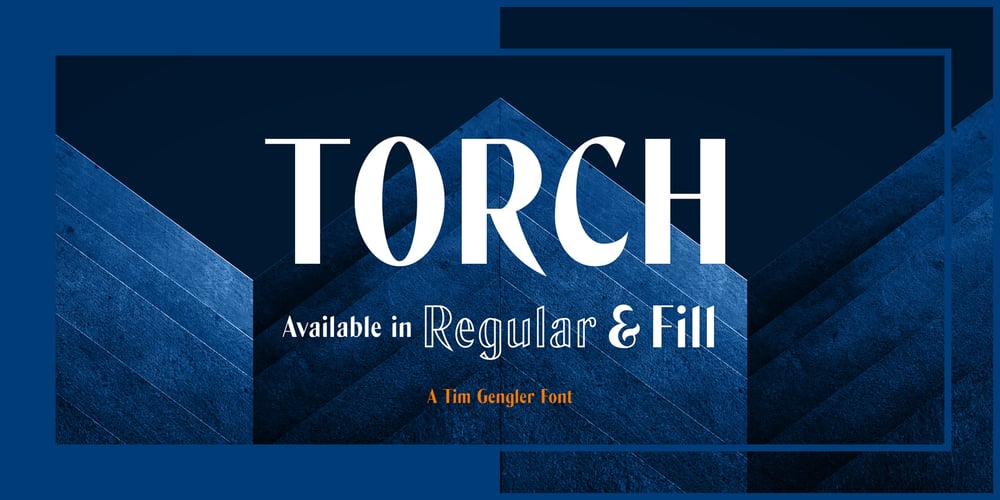
Torch
Torch font
Torch Font Family was designed by Tim Gengler and published by Bunny Dojo. Torch contains 2 styles and family package options. Torch is a spirited, sophisticated sans. With an open flow that embraces and accentuates the beauty of its surroundings, Torch carries a confidence and triumphal whimsy ideal for any celebration.